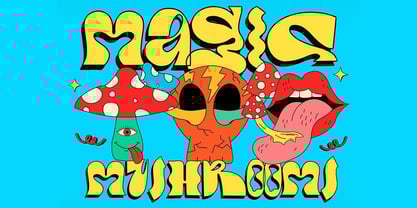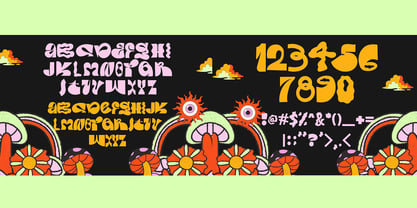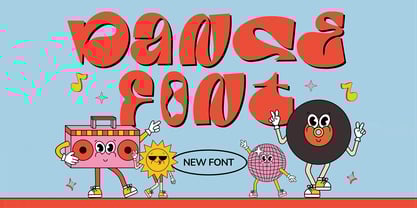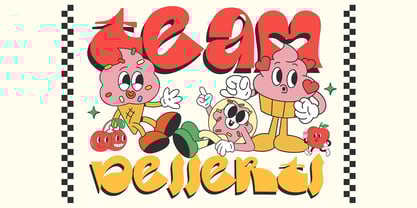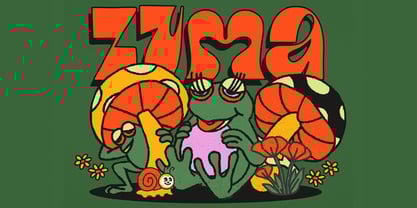
Dance
by Maghrib Type
The Dance Font Family was designed by Rizky Setyaludin and published by Maghrib Type. Dance contains 1 styles.
Dance Font is This typeface vibrant fusion of psychedelic retro and groovy disco vibes—bold, quirky, and full of personality. With its warped shapes, chunky curves, and playful cartoon-inspired elements, this font captures the spirit of the 60s to 80s era where color, music, and self-expression ruled.
Each letterform is uniquely crafted to stand out, featuring a mix of wavy forms, bold geometric strokes, and high-energy character. It’s not just a font—it’s a visual statement, perfect for projects that demand attention and creativity.
Whether you’re designing for music festivals, fun packaging, retro branding, or playful editorial layouts, this font brings a punch of joy, nostalgia, and rhythm to every composition.